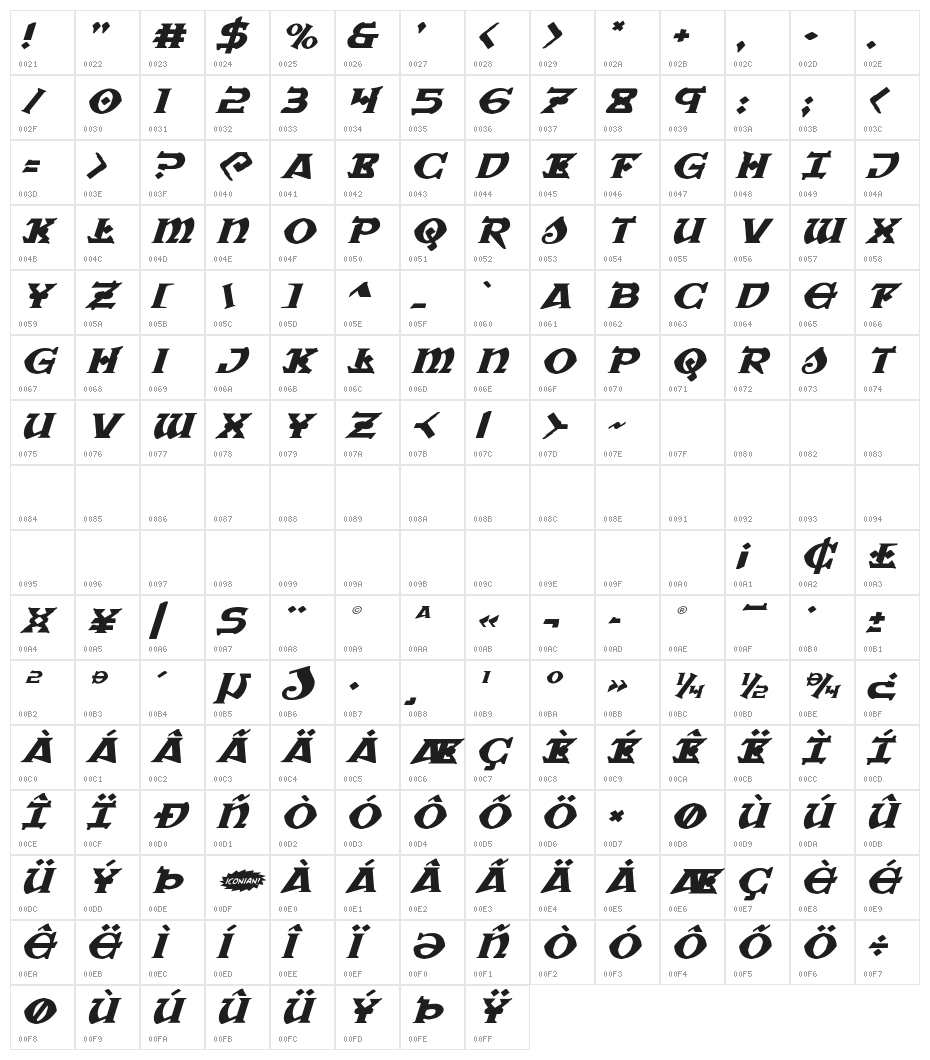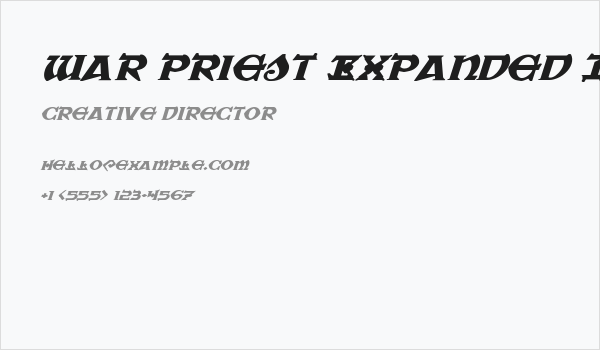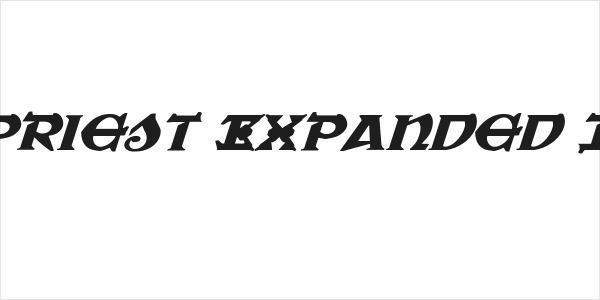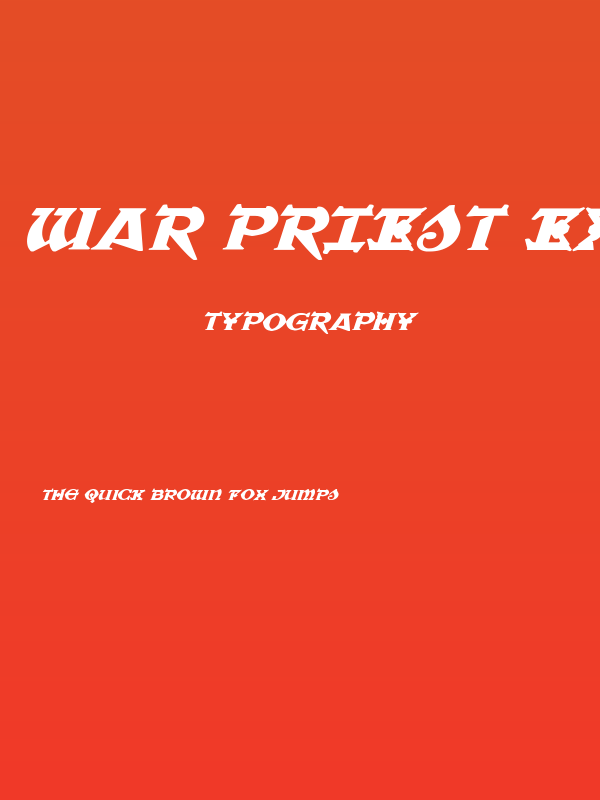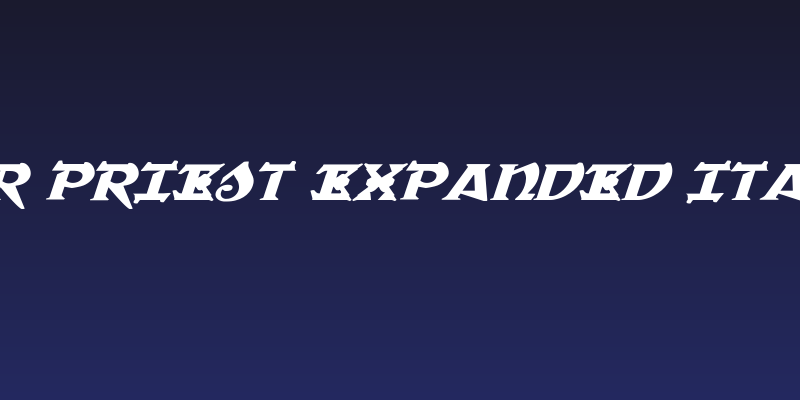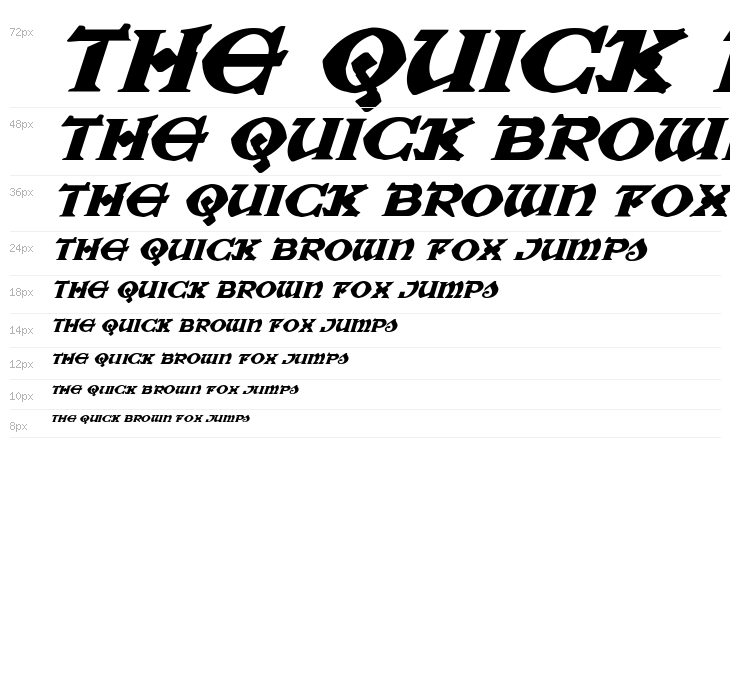
War Priest Expanded Italic Font
War Priest Expanded Italic Description
This font exhibits a bold and dynamic style, characterized by its sharp, angular lines and italicized slant. The expanded width gives it a commanding presence, making it ideal for attention-grabbing designs. Each character is crafted with a distinct flair, incorporating pointed serifs and a slightly aggressive aesthetic. The uppercase and lowercase letters maintain a consistent style, ensuring uniformity across text. Numbers and special characters are equally bold, with a unique design that complements the overall theme. The font's high contrast in stroke thickness enhances its readability and visual impact.